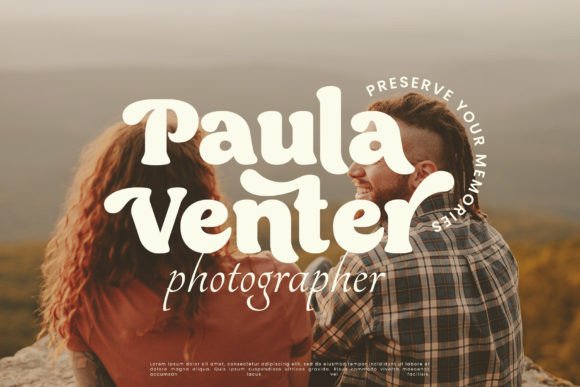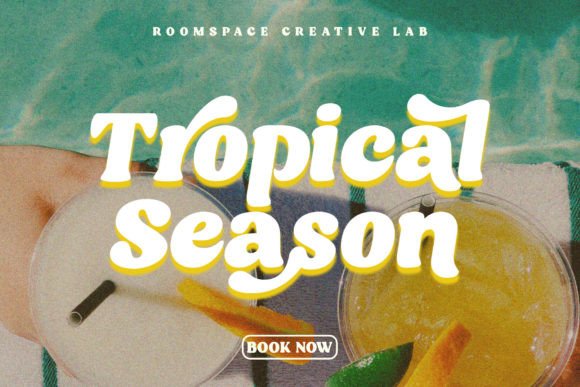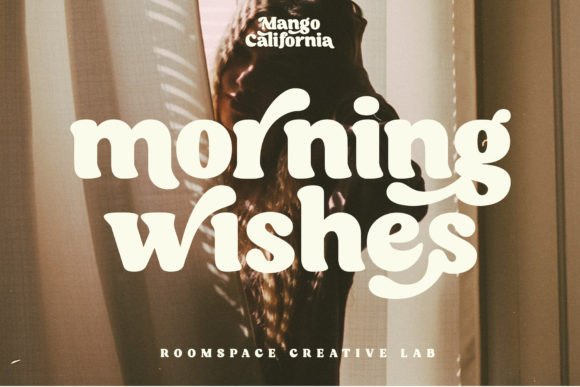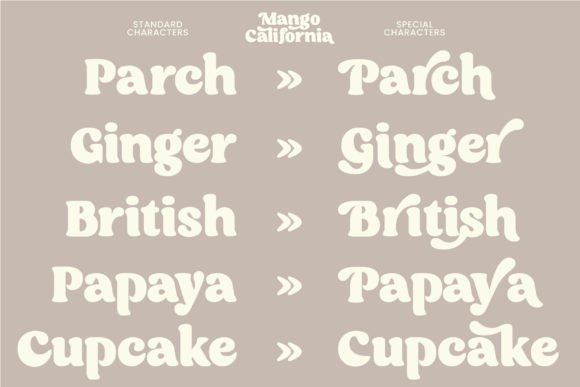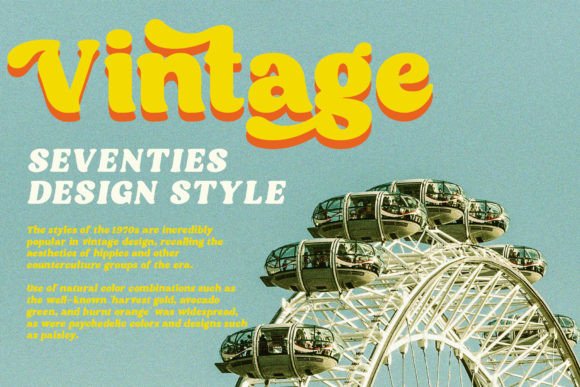
Introduction to Mango California Font
Explore the nostalgic charm of Mango California Serif, a font blending retro, elegant, and modern elements.
| 👤 Author | roomspace |
Carefully crafted, this font exudes classic vibes with a touch of contemporary flair suitable for various DIY projects, including Cricut designs.
Key Features of Mango California Font